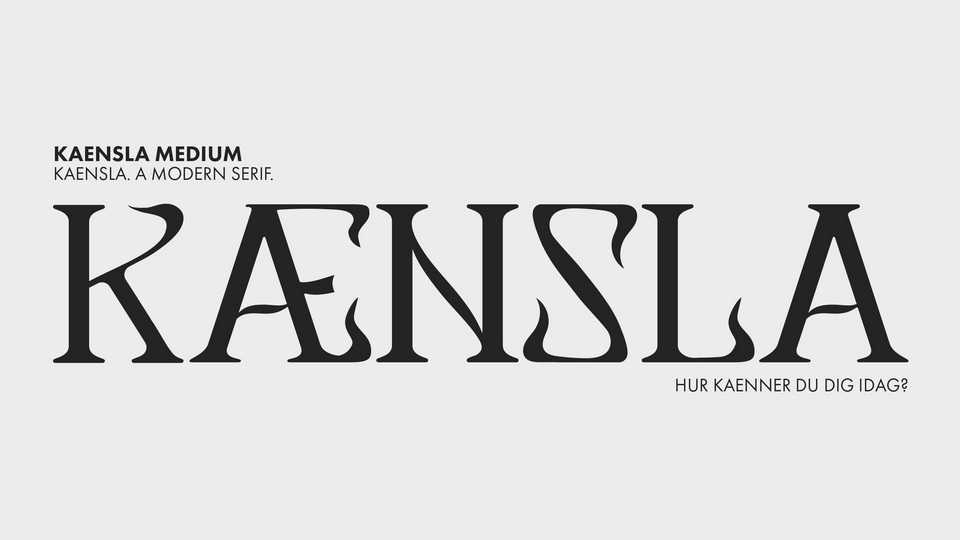
Download Kaensla font, a decorative serif typeface combining vintage and elegant curves with a contemporary appearance. With its unique look Kaensla font is perfect for editorial use, digital lettering, prints, logo, poster, applicable for some type of graphic design.
Designer: Lea Benz